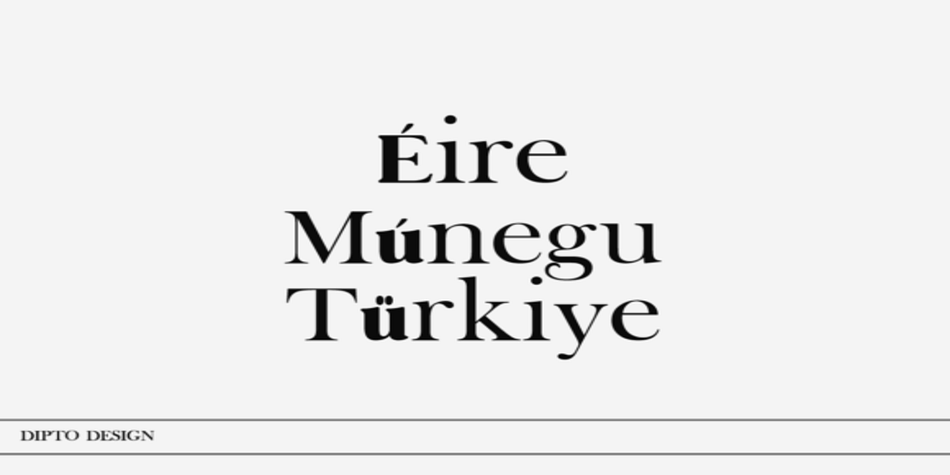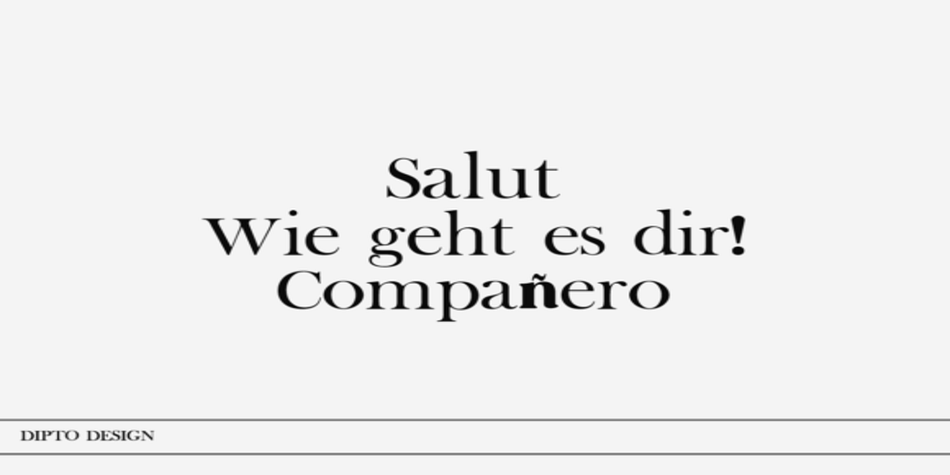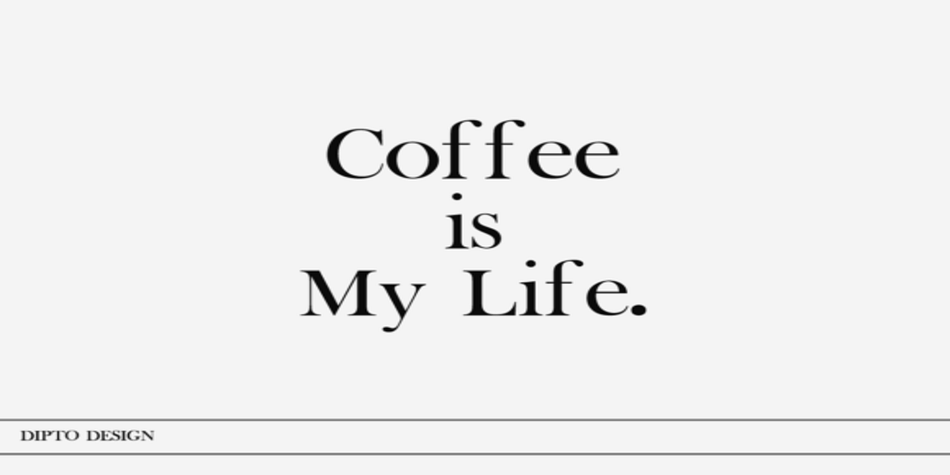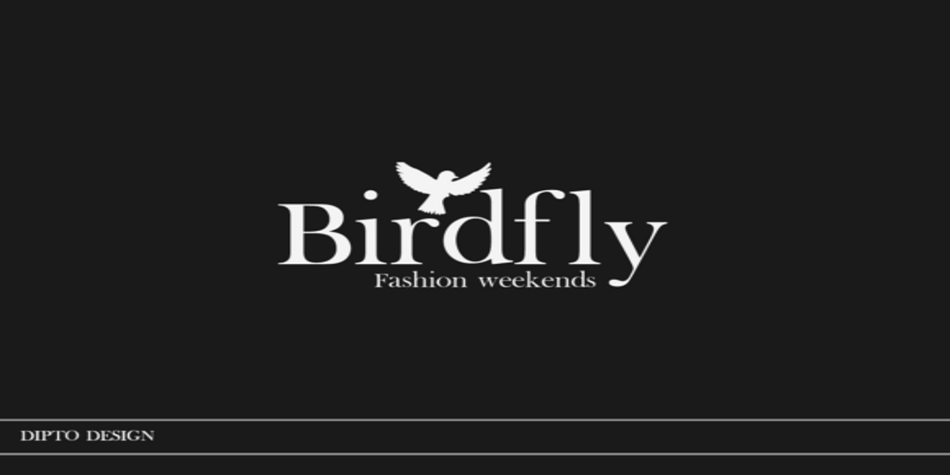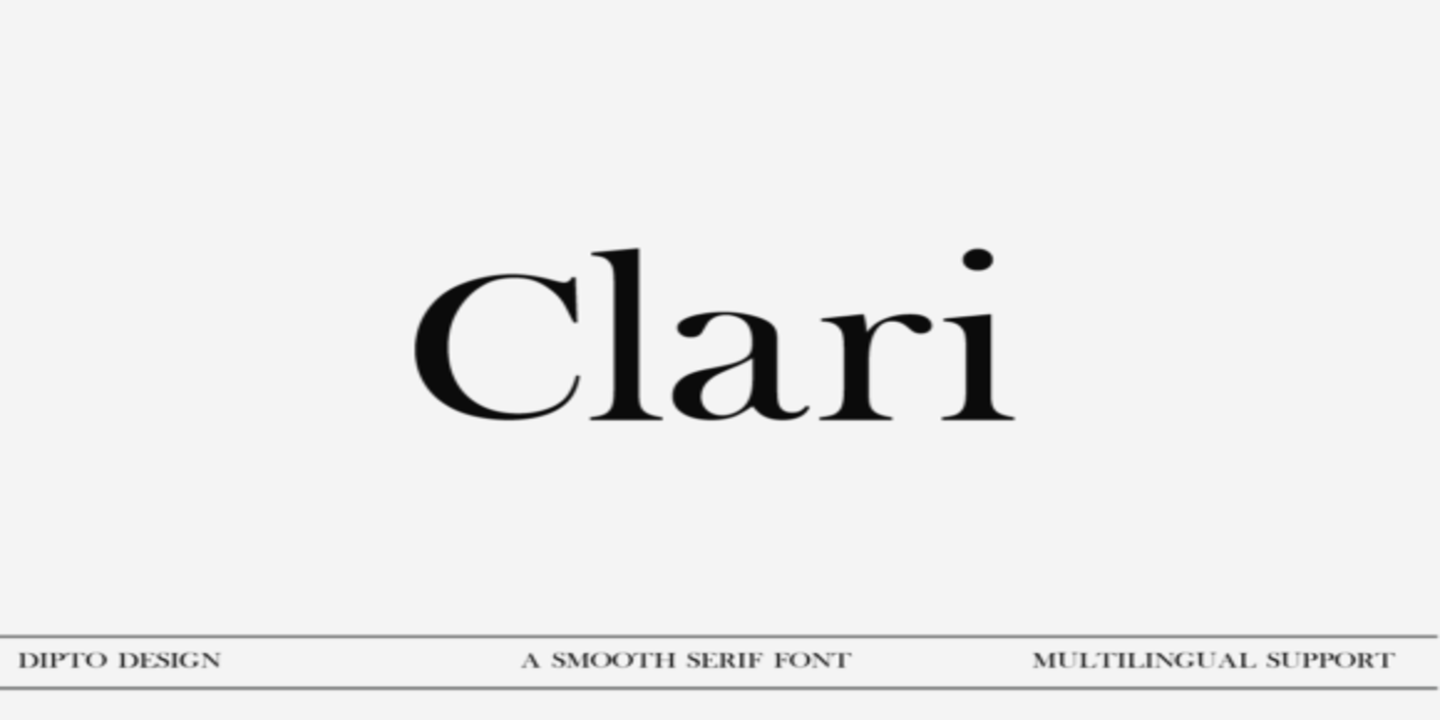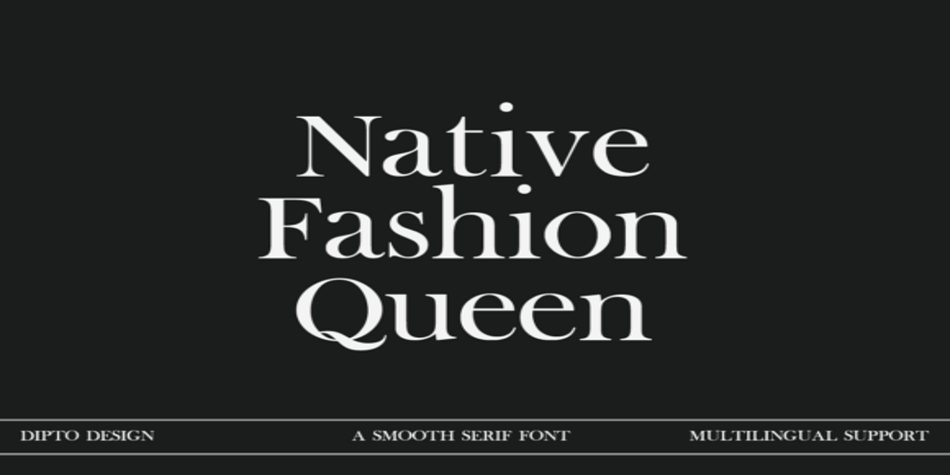
Clari
Clari is a serif font family published by Dipto Design.
Meet “Clari” — where simplicity meets style. This user-friendly font effortlessly blends clarity and creativity. Perfect for sleek presentations, user-friendly websites, or captivating social media posts. Its modern design ensures your message is clear and impactful. Elevate your brand with “Clari” — simplicity at its best.
Can be used for the design of poster, Big sale sign, greeting card , packaging designs, New Year design and so on with the winter season concept.
Stylish and Fashionable
Multilingual